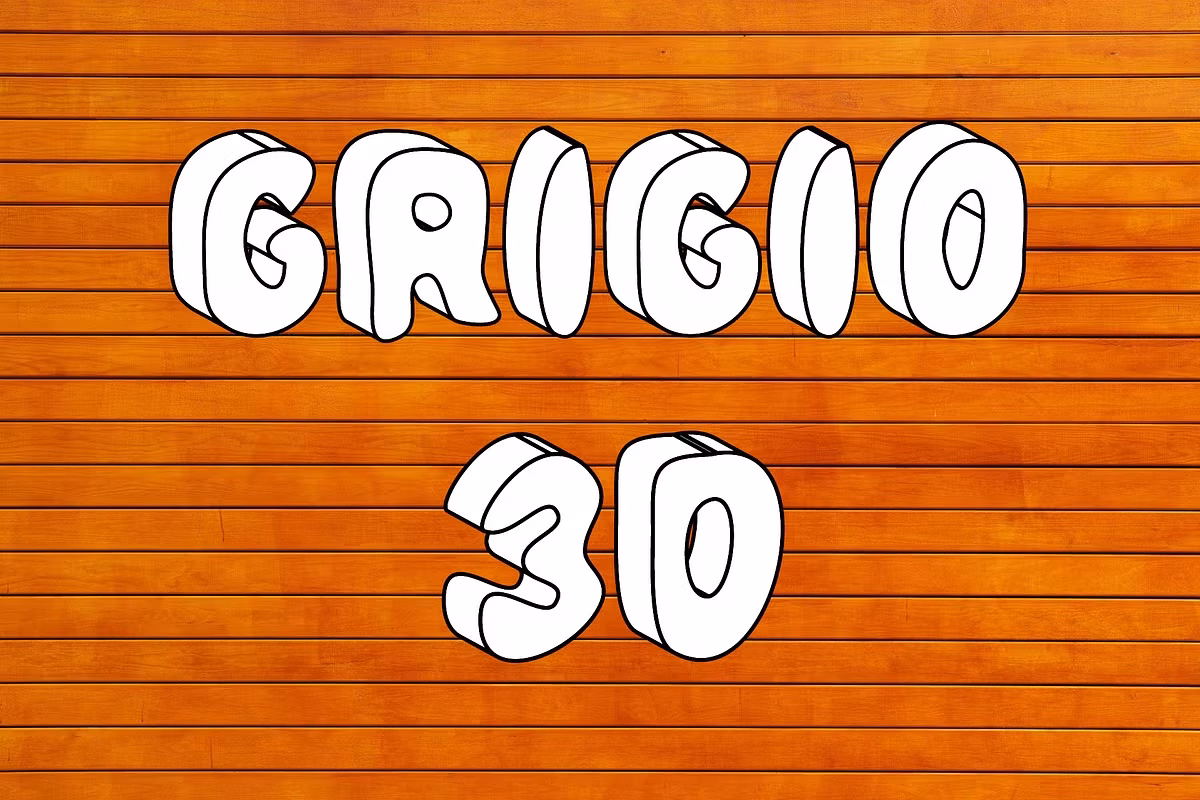
The Grigio 3D SVG Color Font Free Download is a visually striking and modern font that adds depth and dimension to your designs. Perfect for creating eye-catching headlines, logos, posters, and digital content, this 3D color font brings a bold, dynamic look to any project. Please note, for commercial use, a license must be purchased. You can download it for free for testing purposes.
With its vibrant color effects and 3D design, the Grigio 3D SVG Color Font Free Download is ideal for making your designs pop with attention-grabbing style. Whether you're working on branding, marketing materials, or web design, this font offers an exciting, modern aesthetic that will elevate your projects.